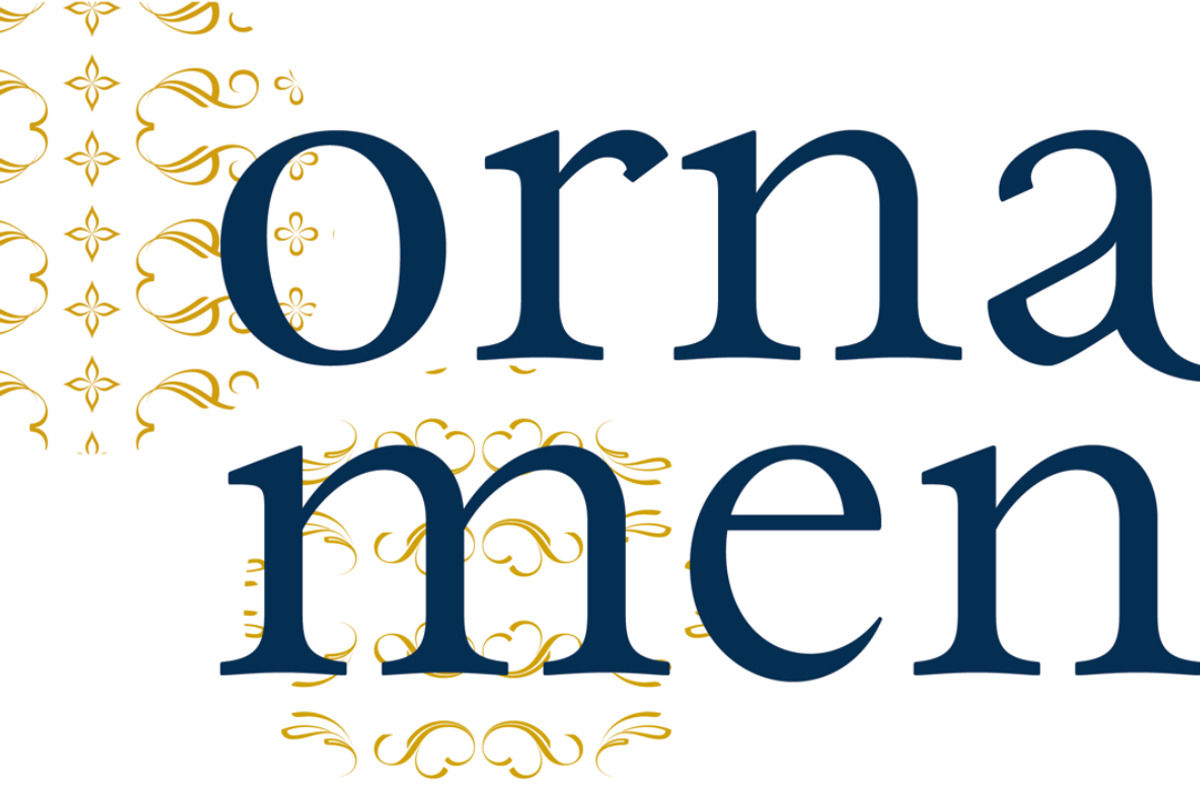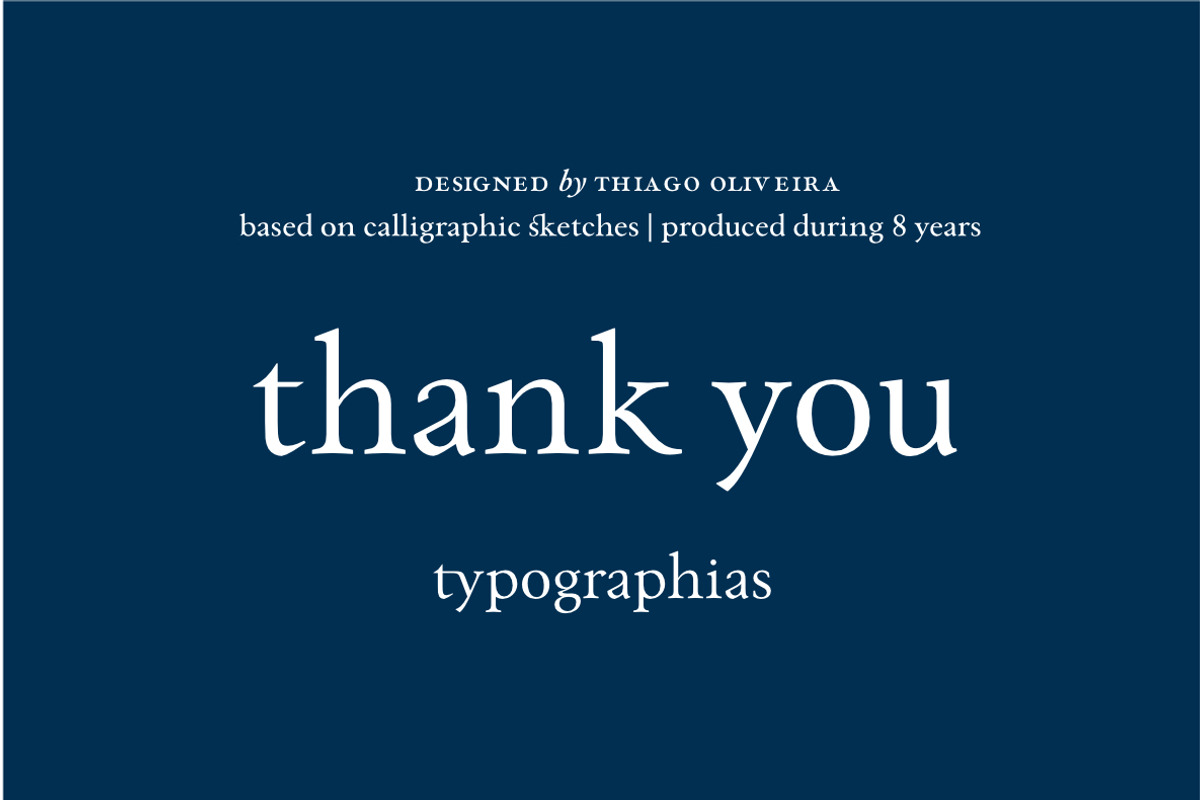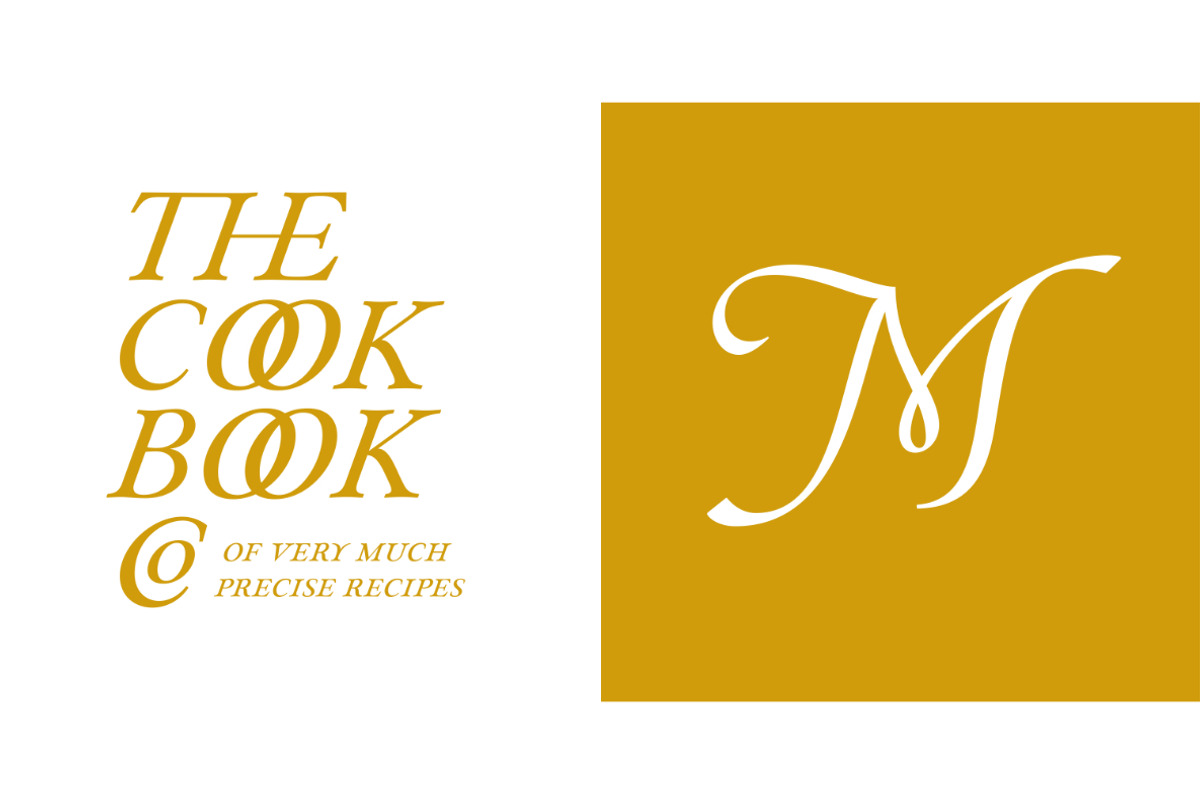
Paciencia
This type family started as a graduation project back in 2009, coming from calligraphic studies and sketches with a broad nib pen, based on humanist proportions and inclination. From its ink and paper origins it has come a long way until the current form, being digitalized and made into fonts through the course of the last 8 years.